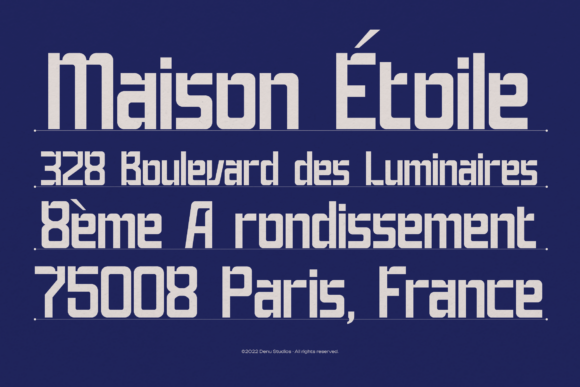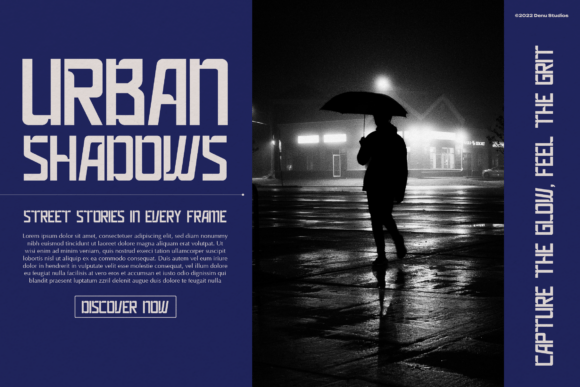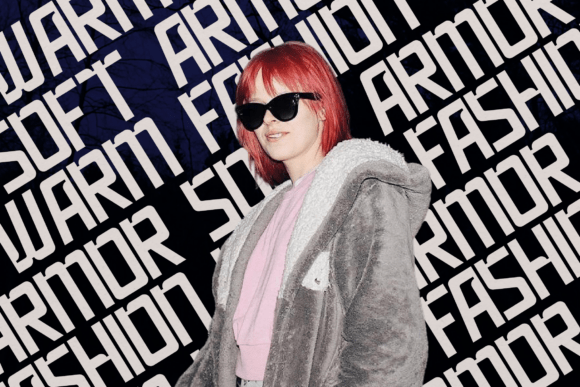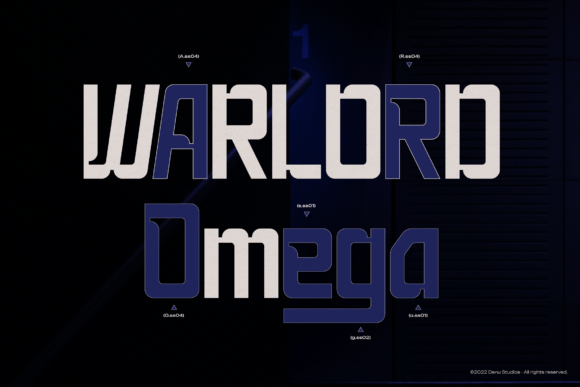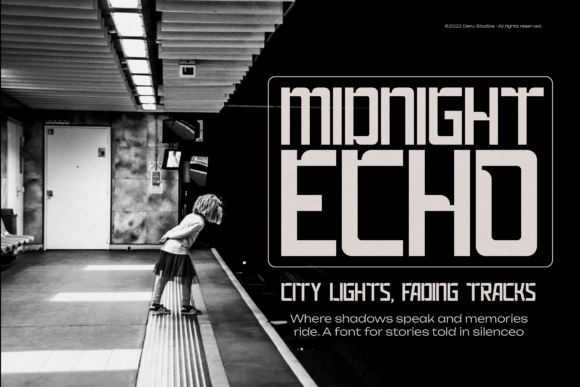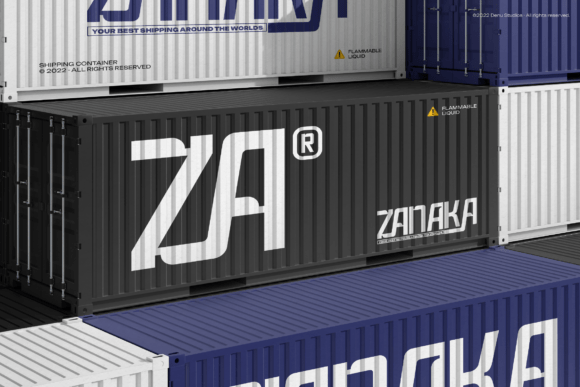
Introducing Antzuw Font: The Cutting-Edge Display Sans Serif for Modern Designs
In the realm of digital and tech-oriented designs, typography plays a pivotal role in conveying innovation and modernity. For designers and crafters seeking a typeface that embodies a sleek, high-tech aesthetic, Antzuw Font emerges as a game-changer. This cutting-edge display sans serif font is meticulously crafted to bring a fresh, futuristic vibe to a wide array of projects, from bold posters and striking branding to captivating digital media.
The Essence of Antzuw: A Modern Edge in Typography
Antzuw Font is distinguished by its geometric construction and clean yet bold appearance. Its design is deeply rooted in the principles of modern typography, offering a unique blend of simplicity and sophistication. This font is not just a collection of letters; it’s an expression of innovation and forward-thinking design. With Antzuw, every letterform is a testament to precision and clarity, making it an ideal choice for projects that demand a contemporary edge.
Unique Features: Ligatures and Geometric Construction
What sets Antzuw apart from other sans serif fonts is its incorporation of unique ligatures and a geometric construction that gives it a distinctively modern feel. Ligatures, which are special characters that combine two or more letters into a single glyph, add a touch of elegance and fluidity to the text. In Antzuw, these ligatures are thoughtfully designed to enhance readability while maintaining the font’s sleek appearance. The geometric construction of Antzuw ensures that each character is balanced and visually appealing, contributing to a harmonious reading experience.
Perfect for Digital and Tech-Oriented Designs
Antzuw’s design philosophy is deeply aligned with the needs of digital and tech-oriented projects. Its clarity and legibility on digital screens make it an excellent choice for app interfaces, website headers, and digital advertising. For tech brands looking to communicate a sense of innovation and cutting-edge technology, Antzuw offers a typographic solution that is both versatile and impactful.
Applications of Antzuw Font
The versatility of Antzuw Font makes it suitable for a wide range of applications. Here are a few ideas where Antzuw can make a significant impact:
• Posters and Flyers: Use Antzuw to create eye-catching posters and flyers that demand attention. Its bold and clean design ensures that your message stands out.
• Branding and Logo Design: Antzuw can be a valuable asset in creating a strong brand identity. Its modern aesthetic can help tech startups and established companies alike to project a contemporary and innovative image.
• Digital Media: From social media graphics to website headers, Antzuw’s legibility and aesthetic appeal make it perfect for digital content creation.
• Futuristic Themes: For projects with a futuristic or sci-fi theme, Antzuw’s geometric and somewhat avant-garde design makes it a fitting choice.
Antzuw Font is more than just a typeface; it’s a design statement. With its sleek, high-tech aesthetic, unique ligatures, and geometric construction, Antzuw brings a modern edge to a variety of design projects. Whether you’re a designer looking to elevate your digital projects or a crafter aiming to create visually stunning posters and branding materials, Antzuw is a versatile and powerful tool. Embrace the future of typography with Antzuw and let your designs speak to innovation and modernity.
In a world where design is a critical component of communication, having the right typography can make all the difference. Antzuw Font stands ready to help designers and crafters achieve their goals with a typeface that is as functional as it is beautiful. Experience the cutting-edge difference that Antzuw can bring to your next project.